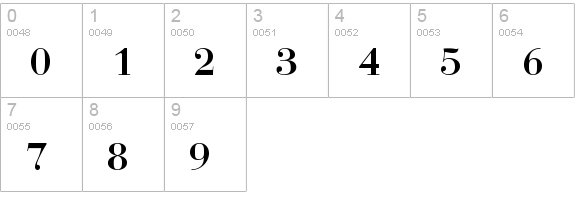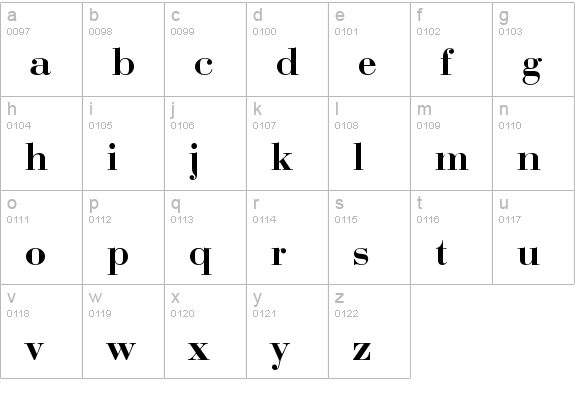
BauerBodoniEF-Medium Font Details
BauerBodoniEF-Medium is a balanced, medium-weight variant in the BauerBodoniEF typeface family \xE2\x80\x94 well suited to sub-headlines, navigation, and balanced editorial work.